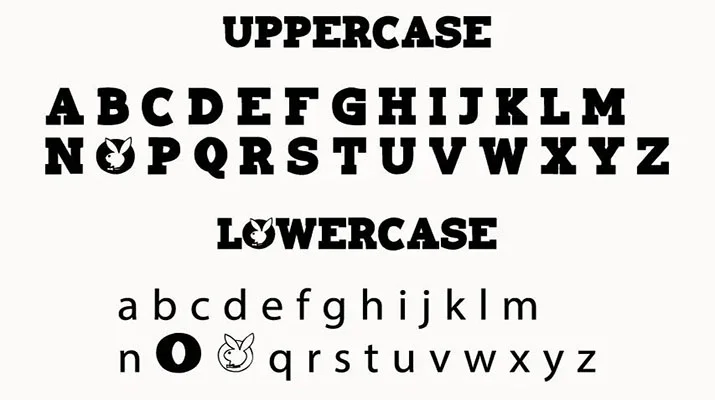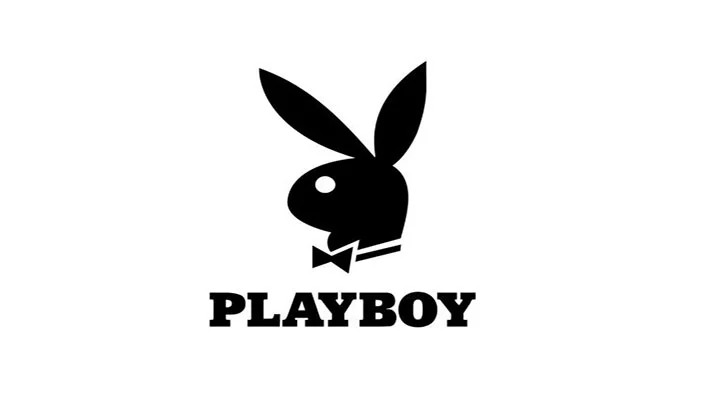
Playboy Magazine Font is a logo typeface basically, it is an American men’s lifestyle and entertainment magazine, formerly in print and currently online. It was founded in Chicago in 1953.
In addition to the flagship magazine in the United States, special national versions of Playboy are published worldwide. The magazine has a long history of publishing short stories by novelists.
Playboy features monthly interviews of public figures, such as artists, architects, economists, composers, conductors, film directors, journalists, novelists, and race car drivers.
The font used in the logo is called Playtoy which was designed and shared by Sharkshock. This font comes in a single style that contains 627 glyphs, numbers, symbols, and a few punctuation marks.
Style:Logo, Slab Serif, Display
Font Designer:Sharkshock